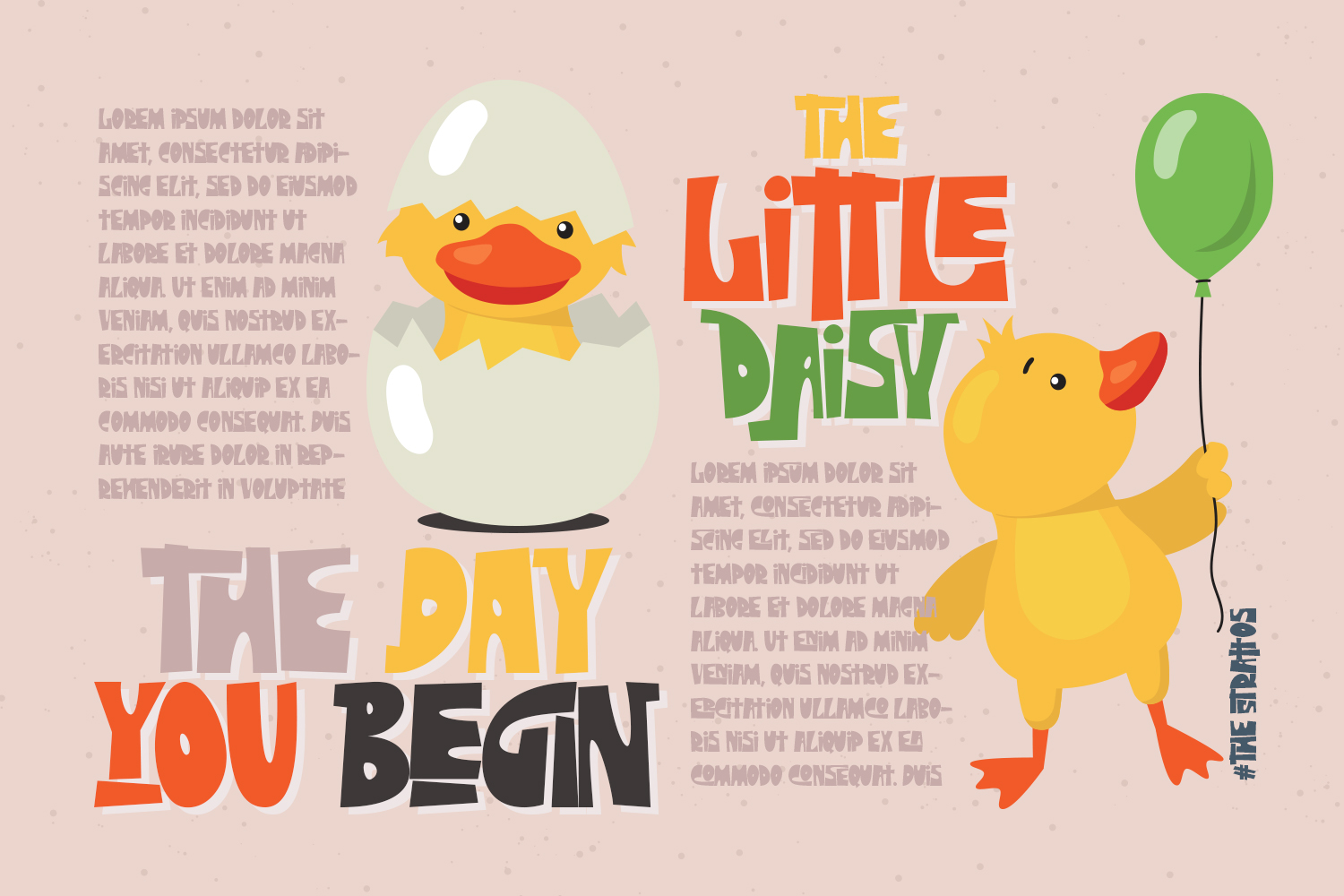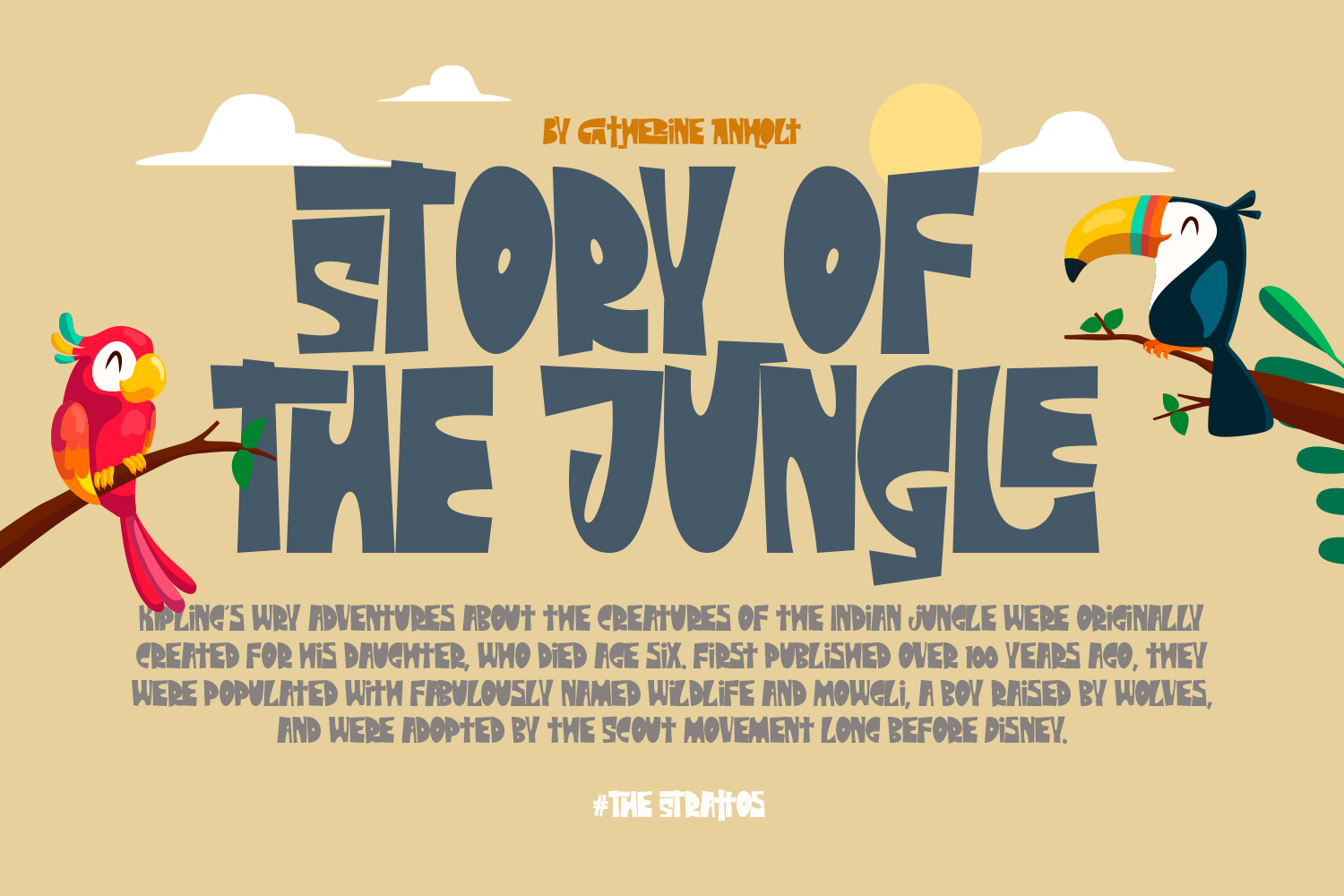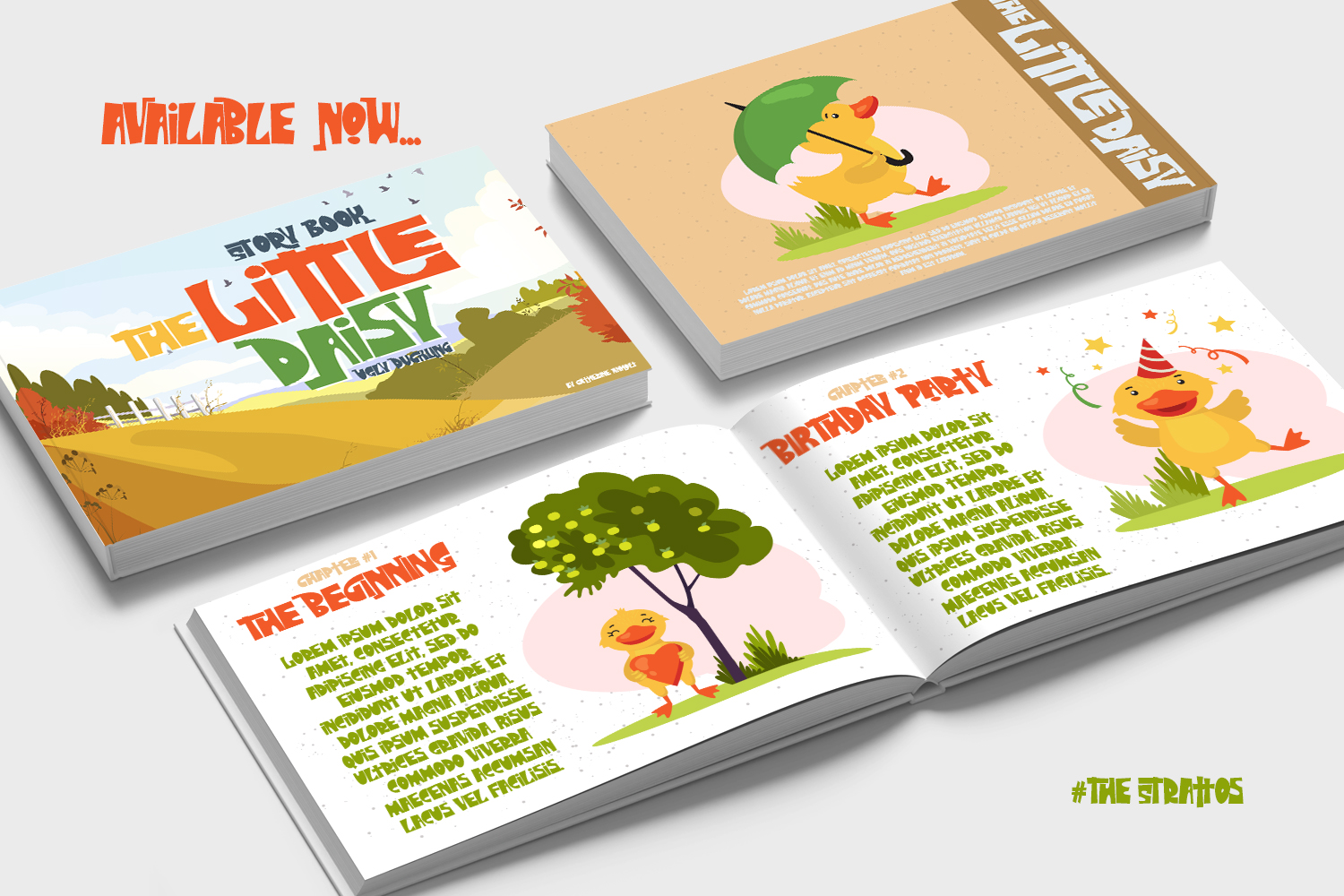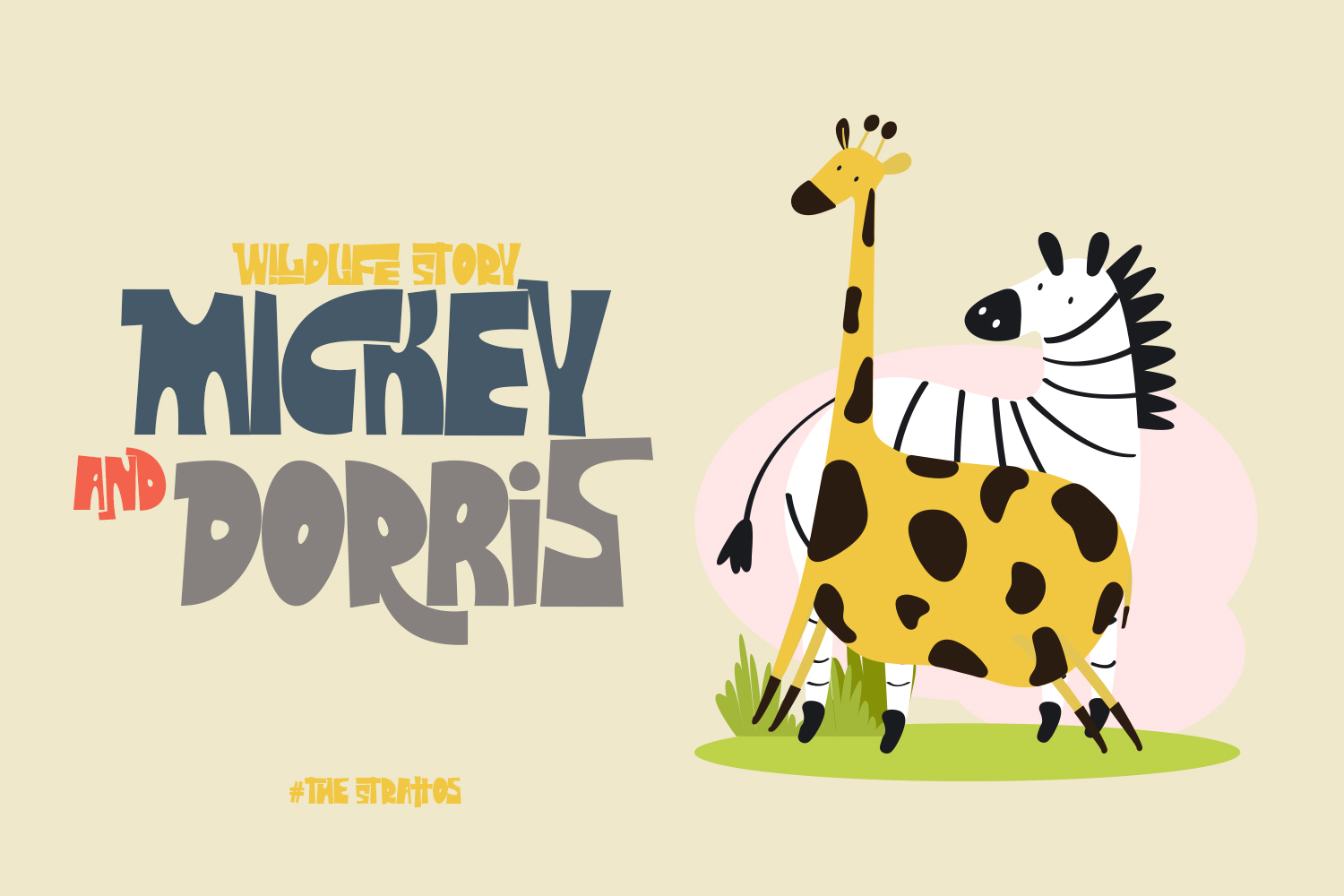
The Strattos Display Font
This typeface is a powerful playful font and will be perfect for book, title branding, product packaging, invitation, quotes, t-shirt, label, poster, logo etc.